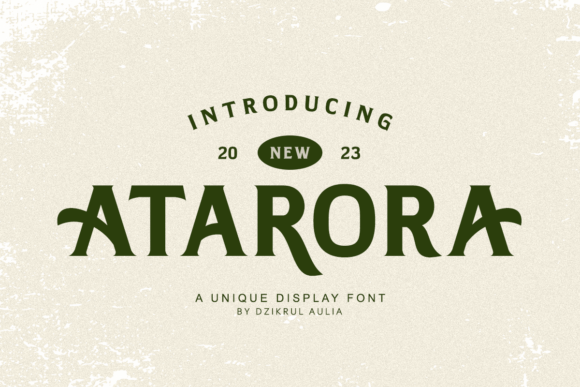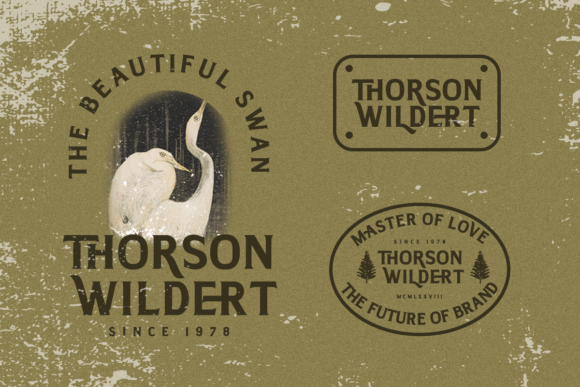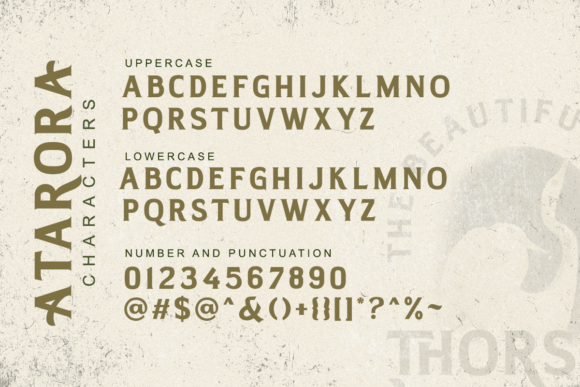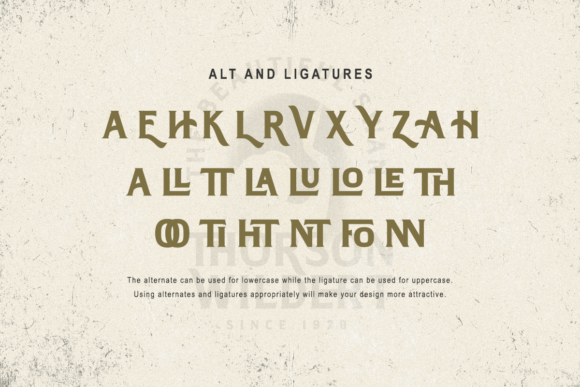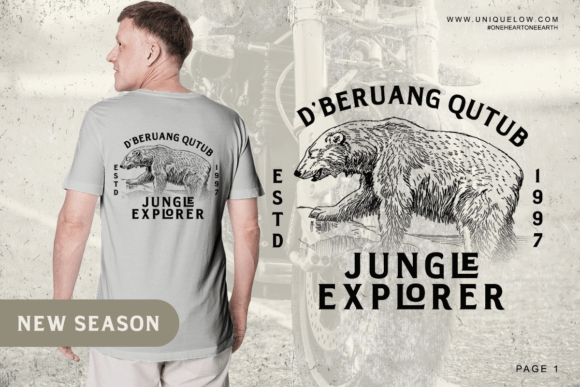
Unleash the Rebel in Your Designs with Atarora Font
Are you a designer or crafter looking for a font that exudes a sense of adventure and rebellion? Look no further than the Atarora Font, a display font that embodies the spirit of vintage motorcycle gangs and adventurous souls. With its unique characters and retro style, this font is perfect for creating eye-catching designs that demand attention.
The Inspiration Behind Atarora Font
The Atarora Font is inspired by the rugged and free-spirited world of motorcycle gangs and adventurers. Its design is reminiscent of the classic American diners, leather-clad bikers, and open roads that evoke a sense of freedom and rebellion. The font’s creator aimed to capture the essence of this subculture and translate it into a typography that would be perfect for designs that require a bold and daring look.
Key Features of Atarora Font
• Unique Characters: Atarora Font boasts unique and distinctive characters that set it apart from other fonts. Its letters and numbers have a custom-designed look that gives them a one-of-a-kind feel.
• Vintage and Retro Style: The font’s vintage and retro style is inspired by the classic typography of the 50s and 60s, with a modern twist that makes it perfect for contemporary designs.
• Display Font: Atarora Font is a display font, designed to make a statement. It’s perfect for headlines, titles, and other design elements that require a bold and eye-catching look.
Atarora Font is a versatile font that can be used in a variety of design projects, including:
• Apparel: T-shirts, hoodies, and other clothing items are perfect canvases for Atarora Font. Its bold and daring look is sure to turn heads.
• Vintage-Style Jackets: Add a touch of rebellion to your jacket designs with Atarora Font. Its retro style and unique characters will give your designs a distinctive look.
• Helmets: Motorcycle helmets, skateboard helmets, or any other type of helmet design will benefit from Atarora Font’s bold and eye-catching look.
• Other Designs: Atarora Font can also be used in other design projects, such as posters, flyers, brochures, and more.
Why Choose Atarora Font?
With so many fonts available, why choose Atarora Font? Here are a few reasons:
• Unique Look: Atarora Font has a distinctive look that sets it apart from other fonts. Its unique characters and retro style make it perfect for designers and crafters looking for something new and exciting.
• High-Quality Design: Atarora Font is designed with high-quality and precision, ensuring that it looks great in any design project.
Atarora Font is a display font that embodies the spirit of adventure and rebellion. Its unique characters and retro style make it perfect for designers and crafters looking for a bold and eye-catching look. With its versatility and ease of use, Atarora Font is sure to become a staple in any designer’s or crafter’s toolkit. So why wait? Unleash the rebel in your designs with Atarora Font today!